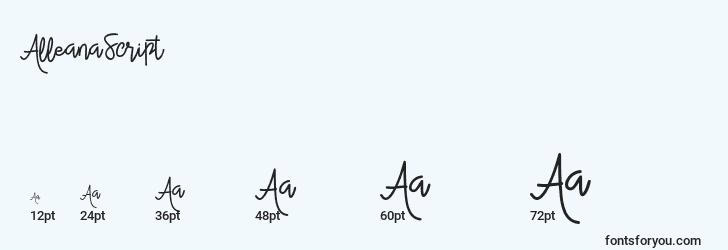
alleanascript
Explore the Artistic Charm of AlleanaScript Font
AlleanaScript, crafted by Emma Carter in 2023, is a stunning handwritten font that captures the essence of personal expression. Ideal for web design, print media, and branding projects, its fluid strokes and casual elegance make it a go-to choice for creatives looking to add a unique touch.
The Inspiration Behind AlleanaScript Font
Inspired by modern calligraphy trends, AlleanaScript was developed to bridge the gap between digital text and personalized handwriting. Emma Carter’s dedication to detail translates into a font that feels both professional and intimate, making every project feel special.
Ideal Uses for AlleanaScript Font
Perfect for invitations, branding, and social media graphics, AlleanaScript adds a touch of authenticity to various applications. Whether for personal projects or business branding, this font’s charming appeal enhances any design.